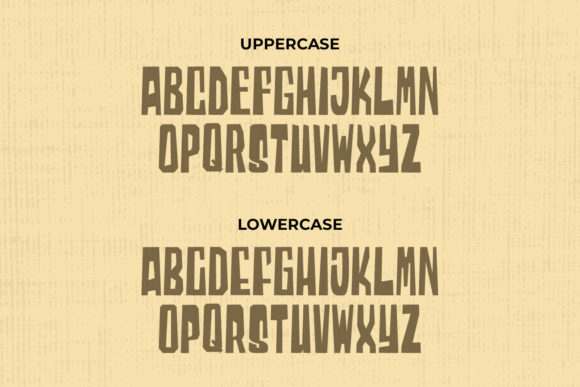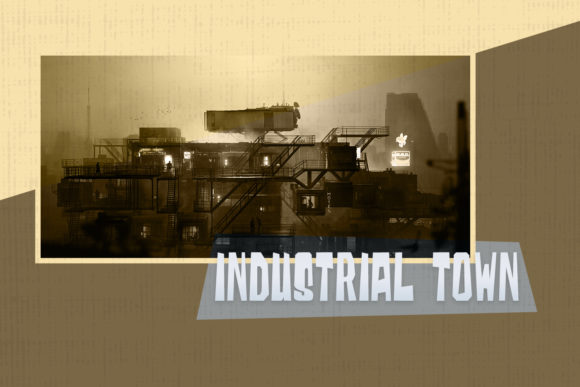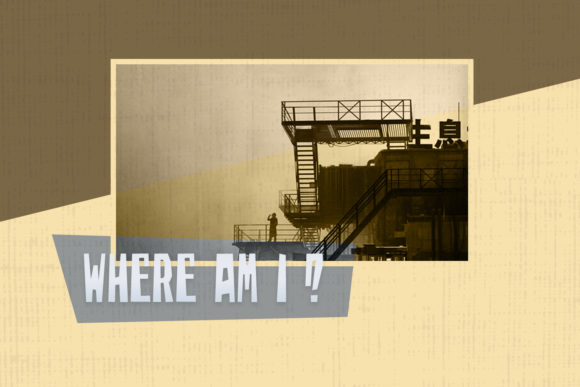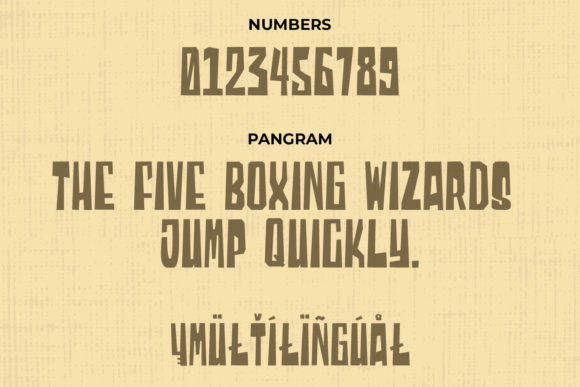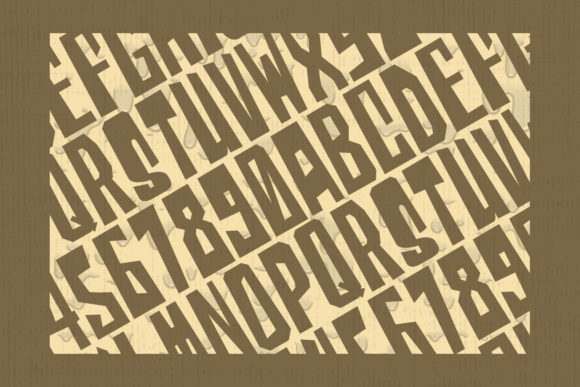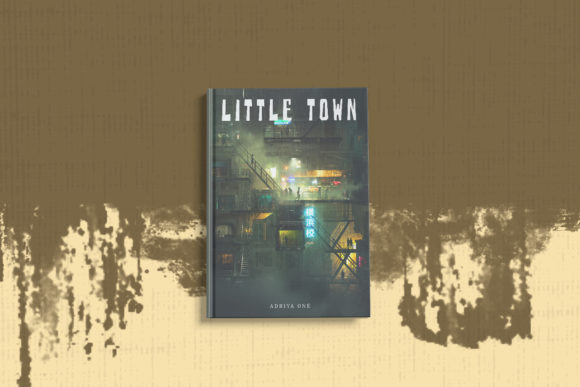
Introduction to Sizela Font
Have you ever stared at a blank page, waiting for inspiration to strike? That’s exactly what happened to me the other day while working on a creative project. I was searching for the perfect font to give my design a unique twist, and that’s when I stumbled upon the Sizela Font. Its quirky, twisted design immediately caught my attention, and I knew I had to give it a try.
As designers, we’re always on the lookout for high-quality design resources that can elevate our work and make it stand out. That’s where the Sizela Font comes in – a free download that’s perfect for creating eye-catching titles, posters, and book covers. With its transparent background and unique design, it’s a versatile font that can add a touch of humor and whimsy to any project.
Whether you’re working on a personal or professional project, the Sizela Font is a valuable addition to your design arsenal. Its simplicity and playfulness make it a great choice for creatives of all levels, and its high-quality design ensures that it will look great on any background.
Key Features of Sizela Font
- Features a large character set, including uppercase and lowercase letters, numbers, and punctuation marks, making it suitable for a wide range of creative projects.
- Designed with a modern aesthetic, the Sizela Font is perfect for use in branding, advertising, and digital design projects that require a touch of sophistication.
- Comes in a single weight, but its unique characteristics make it versatile enough to be used in a variety of contexts, from headings to body text.
Honest Review: Sizela Font
I recently had the chance to work with the Sizela Font, and I must say it’s been a game-changer for my creative project. The high quality of this font is truly impressive, and I love how versatile it is.
- Unique design aesthetic: The Sizela Font has a distinct look that sets it apart from other fonts.
- High-quality glyphs: The font’s glyphs are crisp and clear, making it perfect for digital designs.
- Limited language support: The font only supports a limited range of languages, which might be a problem for designers working on international projects.
- Not suitable for transparent backgrounds: The font’s design doesn’t work well with transparent backgrounds, which can be a limitation for designers who need to work with images or videos.
Overall, I’m really impressed with the Sizela Font. While it has some limitations, its unique design aesthetic and high-quality glyphs make it an excellent choice for creative projects. I’d definitely recommend it to designers looking for a high-quality, free design resource.
Sizela Font
The Sizela Font is a high-quality design resource ideal for creative projects that require a unique and stylish touch. With its transparent background, this font is perfect for creating visually appealing graphics and designs.
Tips for Getting the Most Out of Sizela Font
To get the most out of the Sizela Font, use it in combination with other design elements, such as images and graphics, to create a visually appealing design.
Experiment with different font sizes, colors, and styles to add depth and interest to your design.
The Sizela Font is ideal for a variety of creative projects, including:
Logo design
Business card design
Brochure design
Infographic design
Alternatives to Sizela Font
Great Vibes is a high-quality script font perfect for creative projects that require a touch of elegance and sophistication. It’s ideal for designs with a transparent background, allowing the text to stand out. Great Vibes is available for free download, making it a valuable design resource for designers.